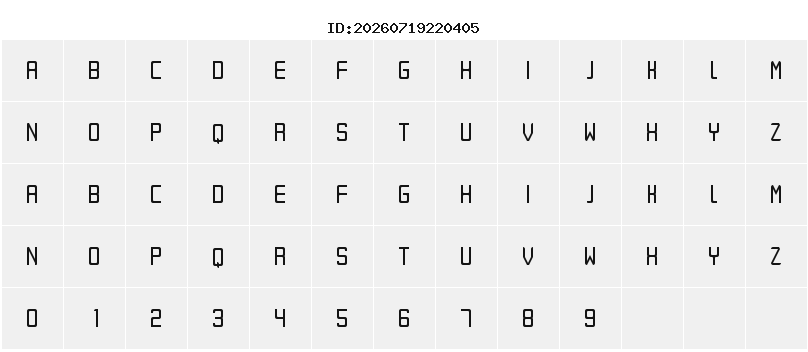
• Font Name: Eret
• Full Font Name: Eret Regular
• Designer: erik820
• Description: “Eret” was built with FontStruct
About Eret.ttf
Eret.ttf is a modern, elegant sans-serif font designed for ultimate readability and visual harmony. Perfect for branding, headlines, web design, and print materials.